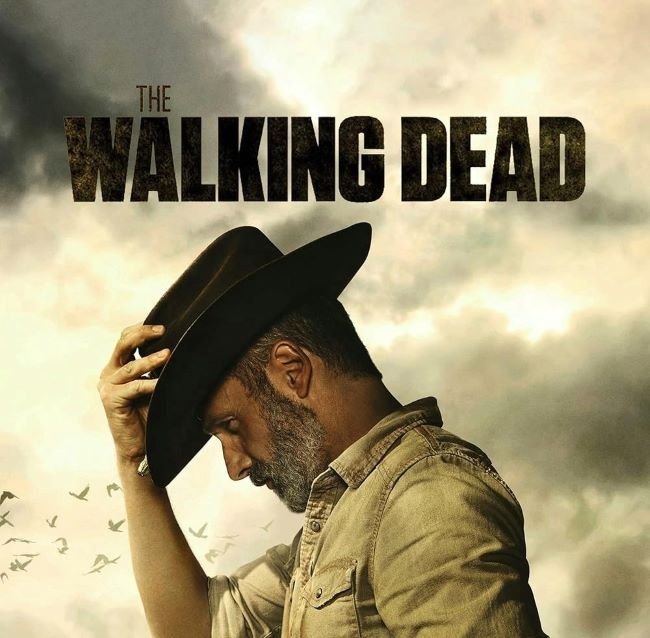
The Walking Dead Font
The Walking Dead font wears its apocalypse openly — distressed, weathered, and structurally compromised in ways that mirror what the world looks like after civilisation has stopped maintaining things. The title lettering for AMC’s long-running zombie drama sits in the eroded display tradition: letterforms that were once solid and readable now bearing the surface texture of neglect, exposure, and decay, as if the sign was put up before the outbreak and nobody has been around to replace it since. Three alternatives reconstruct this atmosphere of post-apocalyptic typographic survival from different angles: Alternative 1, Alternative 2, and Alternative 3.